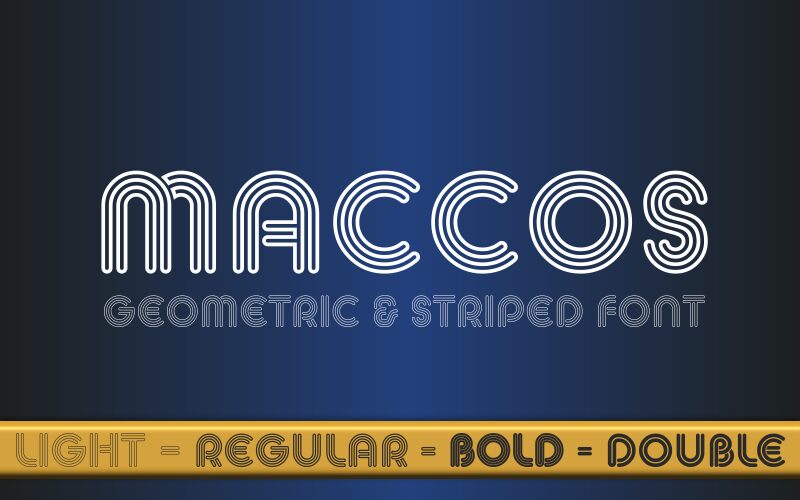
MACCOS LIGHT Demo
Maccos Light, a captivating display font crafted by Mehmet Abaci of Studio Type, exudes a groovy, bold aesthetic. Its undulating lines and playful curves lend an eye-catching, retro-inspired flair to any design.
The font's distinctive personality shines through its striking, bold strokes that create a sense of fluid movement and dynamism. Maccos Light's unique character makes it a versatile choice for a wide range of applications, from eye-catching headlines to impactful branding.
Seamlessly blending vintage charm and modern appeal, Maccos Light is an ideal font for creating vibrant, attention-grabbing designs in areas such as packaging, advertising, and event materials. Its bold presence and distinctive style make it a standout choice for designers seeking to add a touch of retro-futuristic allure to their projects.